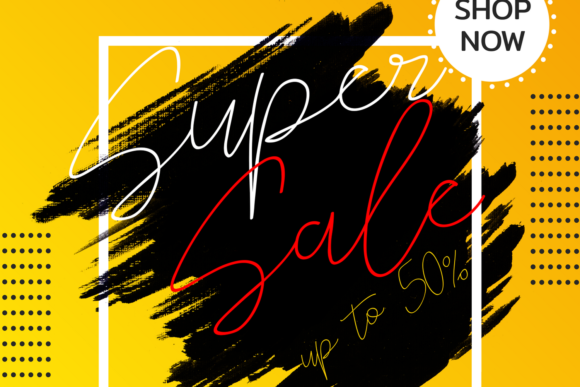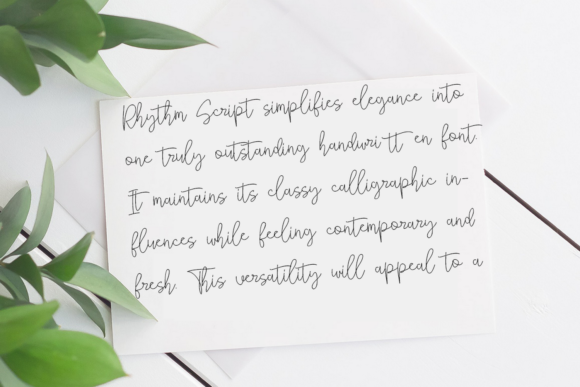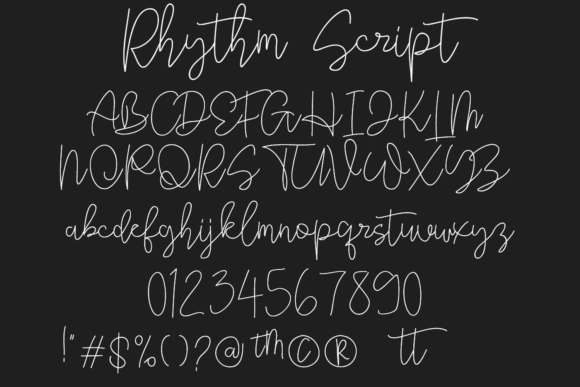
Introduction to Rhythm Script Font
Have you ever found yourself scribbling down a brilliant idea on a napkin or a sticky note, only to realize that it needs to shine in a more polished light? That’s where the Rhythm Script Font comes in – a game-changing design resource that elevates your creative project to new heights. This elegant, timeless handwritten font is the perfect complement to any high-quality design, and its free download makes it easily accessible to designers of all levels.
With its transparent background and versatility, the Rhythm Script Font is an invaluable tool for designers looking to add a touch of sophistication to their work. Whether you’re working on a branding project, a blog post, or a social media campaign, this font is sure to make your ideas stand out in a crowded digital landscape.
Key Features of Rhythm Script Font
- Rhythm Script Font is a high-quality, free download design resource ideal for creative projects.
- It features a unique, hand-written script style with a transparent background, making it perfect for adding a personal touch to your designs.
- Rhythm Script Font is a great addition to any designer’s toolkit, offering a unique and elegant touch to creative projects.
Honest Review: Rhythm Script Font
As a designer, I’m always on the lookout for high-quality design resources that can elevate my creative projects. The Rhythm Script Font is one such resource that I’ve had the pleasure of working with.
- Beautiful and elegant script style that adds a touch of sophistication to any design
- High-quality font that’s perfect for creative projects such as invitations, posters, and branding materials
- Transparent background option allows for seamless integration with any design element
While the Rhythm Script Font is an excellent resource, there are a few limitations to be aware of:
- Limited language support, which may be a concern for designers working on multilingual projects
- No bold or italic variants available, which may limit its use in certain design scenarios
Overall, I’m impressed with the Rhythm Script Font and would highly recommend it to designers looking for a high-quality, elegant script font for their creative projects.
Tips for Getting the Most Out of Rhythm Script Font
To get the most out of Rhythm Script Font, use it on a transparent background to create a beautiful and elegant design. Experiment with different font sizes and styles to add depth and visual interest to your creative project.
Rhythm Script Font is ideal for wedding invitations, baby announcements, and other creative projects that require a high-quality, elegant font. You can also use it as a design resource for creating custom graphics, logos, and typography.